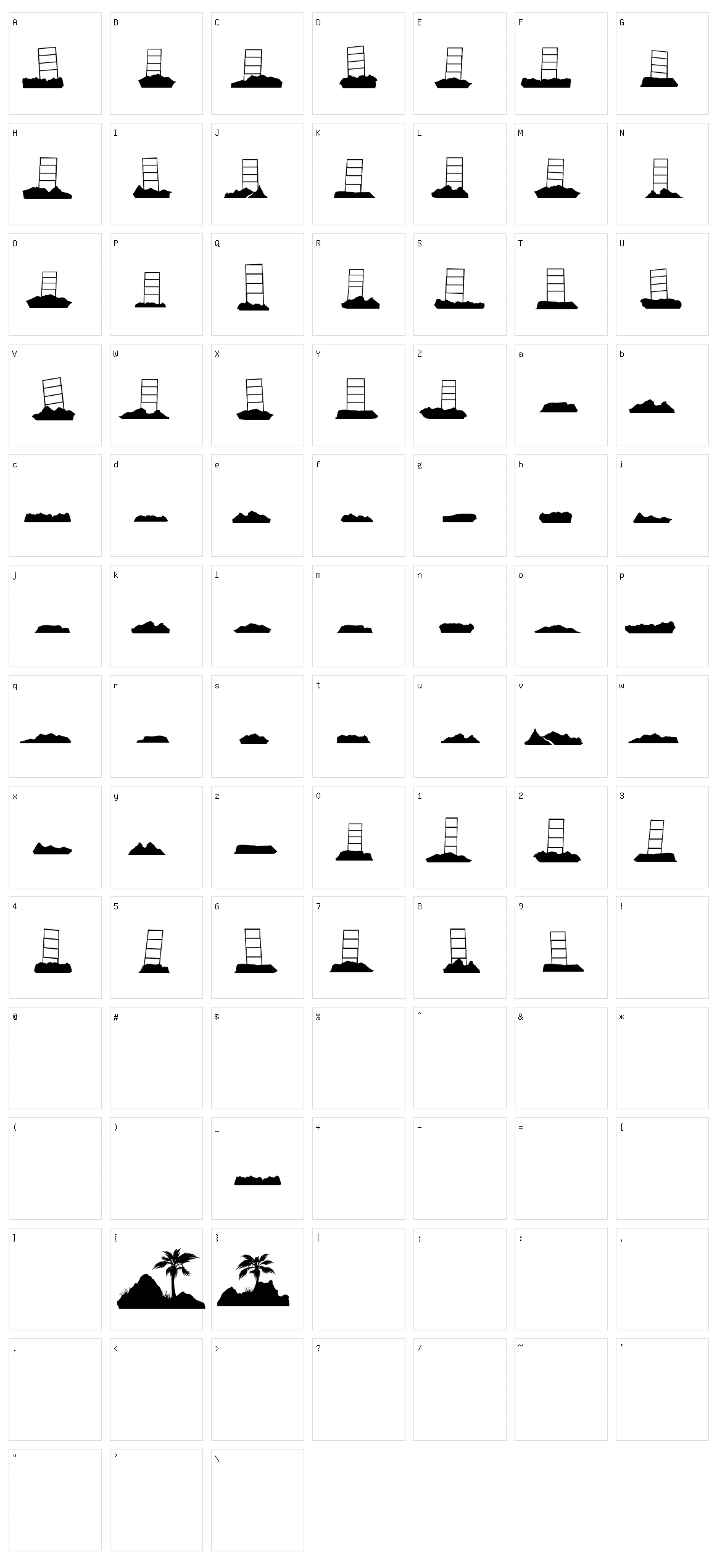
Hello, I made this font obviously with the hollywood sign in mind. Nothing more to say other than that.
I added the bottom grounds to "Hollywood Capital Hills" so they appear to look like the tops of silhouetted hills with the sign text above. The regular version is just the text without the sign holders or scenery and the blank version is the most useless file - I am including it because you can use the hills and change the colors from the main text (using photoshop and whatnot) and use the regular font on top.